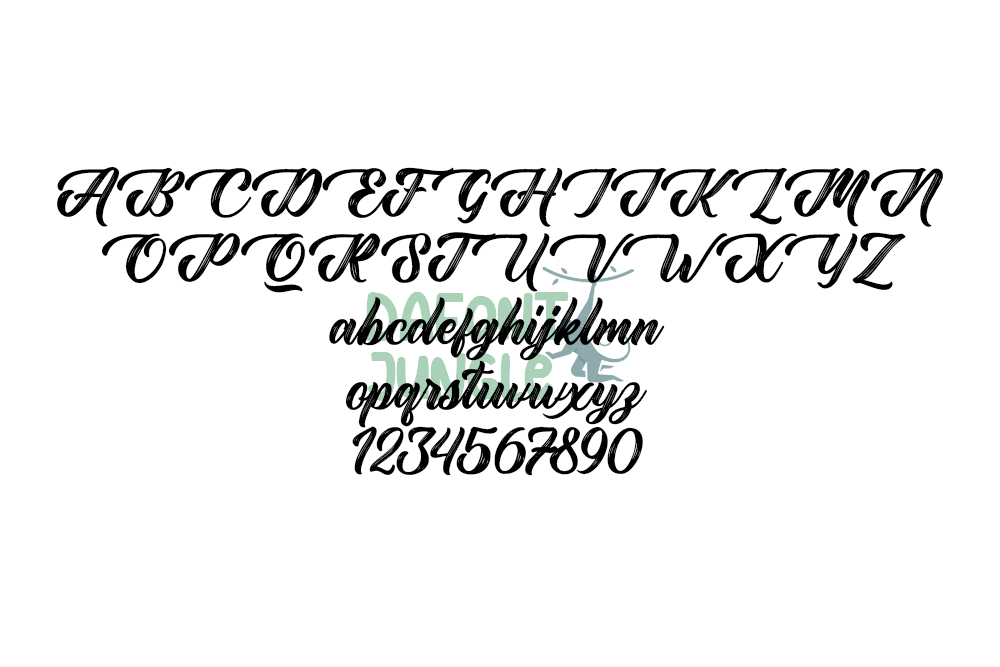
Rustling Trees – Textured Script with Natural Flow
Rustling Trees is a stylish textured script font created in collaboration with Albion Room. Designed to bring the feel of hand-lettered art into digital design, it features smooth textures and flowing strokes that give your work a natural, personal touch.
This font includes alternate characters for both lowercase and uppercase letters, along with special initial and terminal forms. With up to 10 styles for some letters, it’s perfect for creating truly custom lettering.
Whether you’re designing logos, posters, branding, signage, or digital lettering art, Rustling Trees gives your text character and charm.
– Natural textured script style
– Up to 10 stylistic alternates per letter
– Alternate initial and terminal forms
– Refined all-caps mode (no tails or swashes)
– Multilingual support included